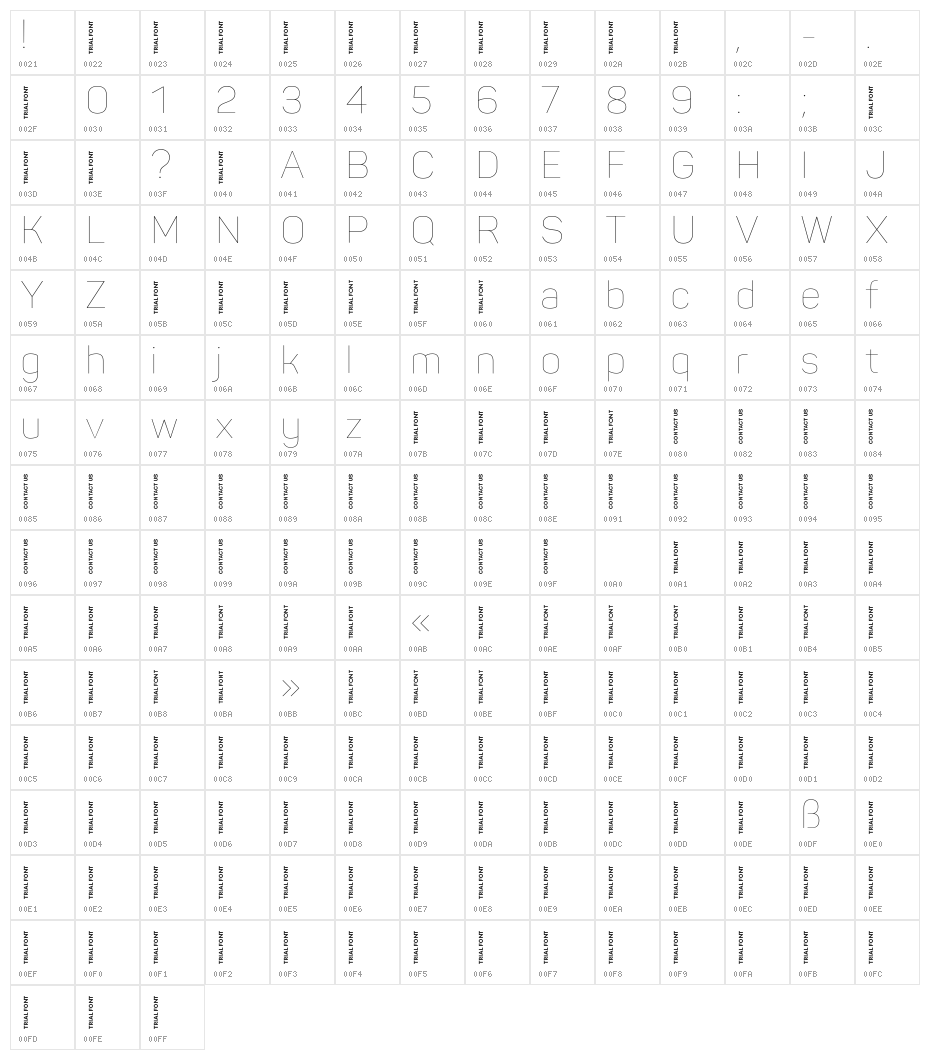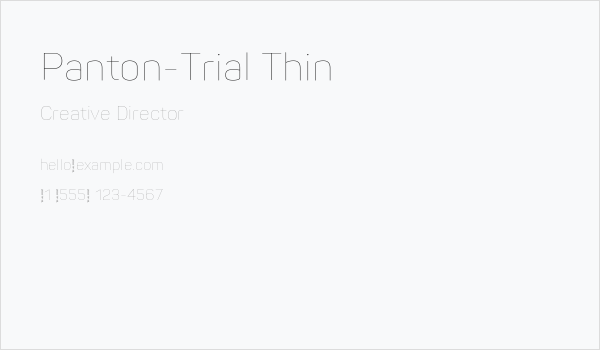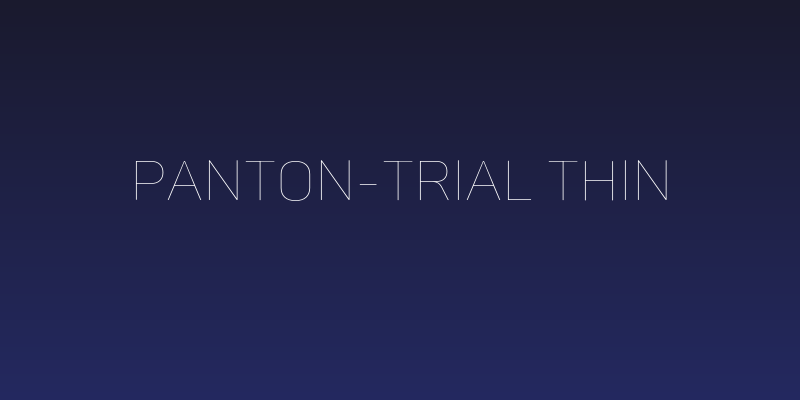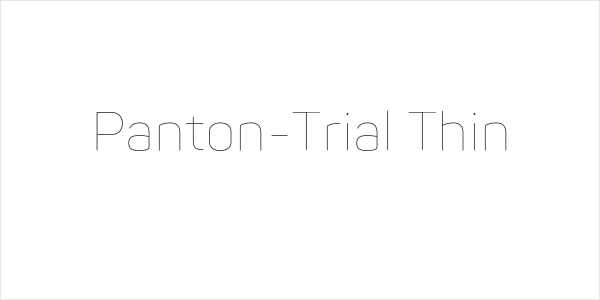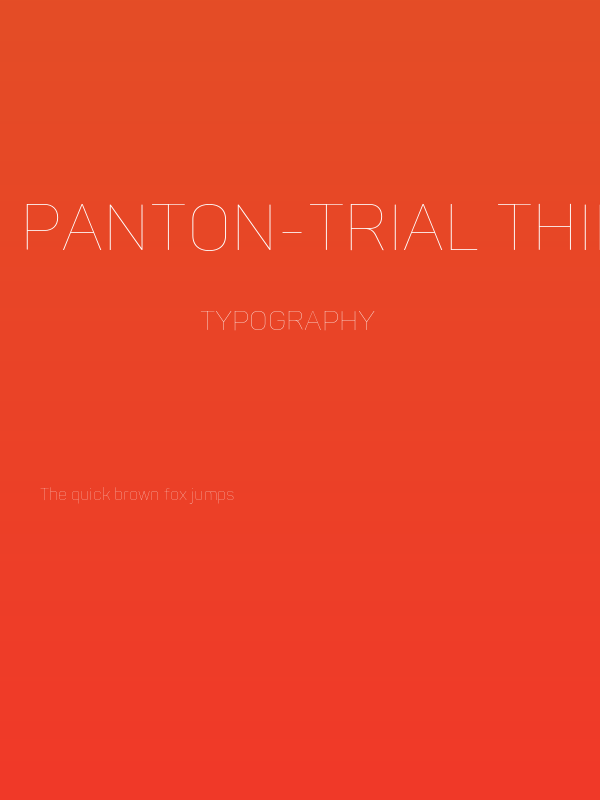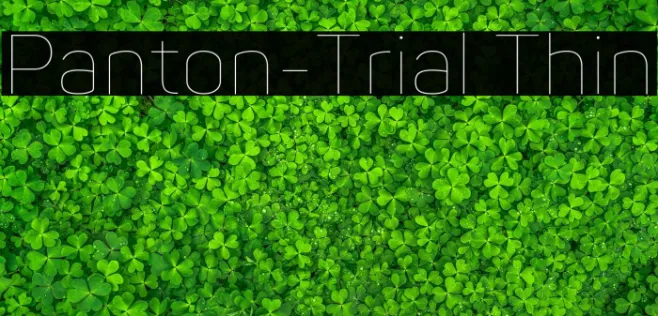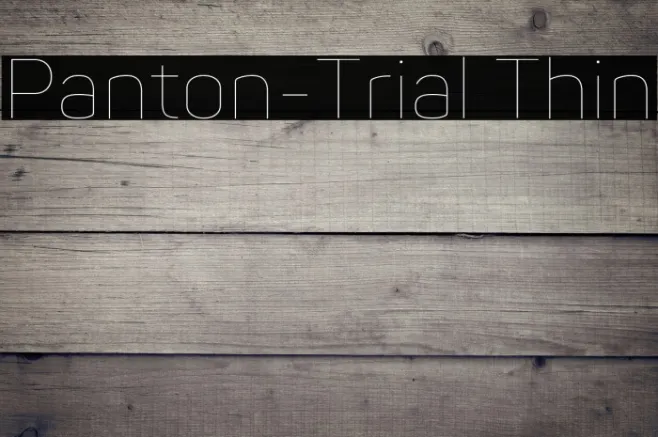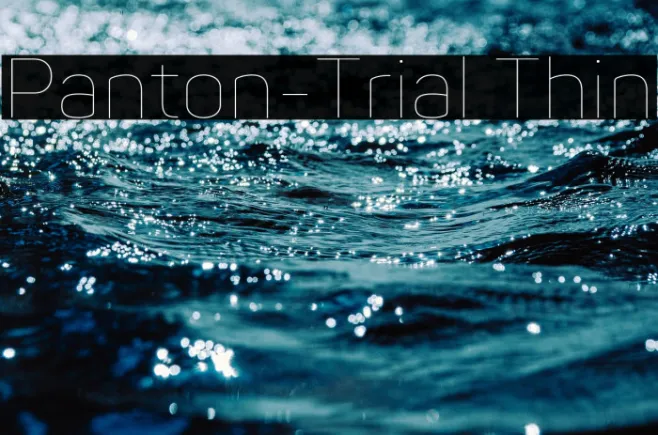
Panton-Trial Thin Font
Panton-Trial Thin Description
This typeface features a clean and minimalist design with thin, uniform strokes that give it a sleek and modern appearance. The characters are well-proportioned, with a geometric influence evident in the precise curves and straight lines. The uppercase and lowercase letters maintain a consistent style, ensuring readability and visual harmony. The numerals are clear and distinct, matching the overall aesthetic of the alphabet. Special characters are included, maintaining the same thin and elegant style. This font is versatile, suitable for a variety of design applications where a contemporary and refined look is desired.
| Proposed Projects | Ideal for branding, editorial design, web design, and minimalist posters. |